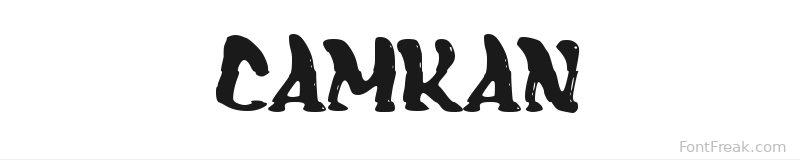
Camkan
About Camkan
The Camkan font, designed by Wahyu Eka Prasetya, is a striking display typeface that captures attention with its bold and artistic flair. This freeware font boasts a unique blend of expressive strokes and a slightly irregular rhythm, giving it a handcrafted feel that stands out in various applications. The strokes feature a moderate weight with a delightful contrast, enhancing its visibility and impact. The spacing between letters is thoughtfully balanced, allowing for easy readability while maintaining a distinctive character that draws the eye.
Camkan’s playful and dynamic design makes it an excellent choice for a variety of creative projects. It is perfect for wedding invitations, where its elegant yet fun style can convey a sense of celebration. Additionally, it shines in movie posters, adding a unique touch that captures the essence of film themes. Restaurant menus can also benefit from Camkan's artistic flair, making dishes appear more appealing. Furthermore, this font is ideal for branding materials, especially for businesses looking to convey a modern yet approachable image.
The target audience for the Camkan font includes graphic designers, small business owners, and content creators who seek to elevate their visual projects. Its versatility and engaging style make it an excellent choice for anyone looking to make a memorable impression.
What truly sets the Camkan font apart is its ability to combine artistry with functionality. Its distinctive design not only enhances aesthetic appeal but also serves practical purposes across diverse mediums. For those interested in incorporating this unique typeface into their work, a Camkan font free download is readily available, allowing creatives to explore its potential without constraints.